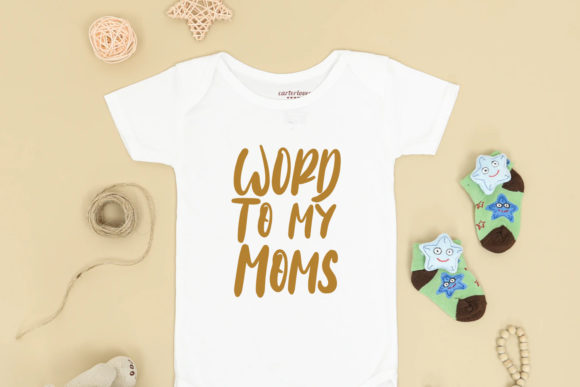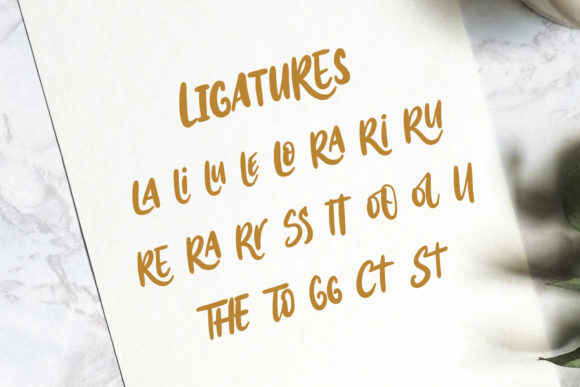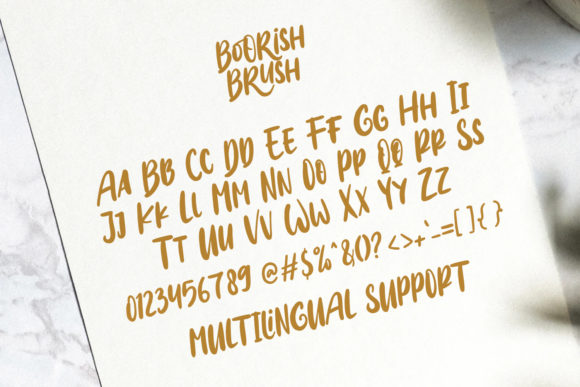
The Perfect Brush Stroke for Your Next Creative Project
Have you ever sat in front of a blank page, staring at a blank canvas, and wondering where to start? It’s a moment we’ve all experienced at some point or another. But then, something sparks – a phrase, a color, a font – and suddenly, the ideas start flowing. For me, that moment often comes when I discover a new, versatile font that can elevate my designs to the next level. Recently, I stumbled upon the Boorish Brush Font, and I’m excited to share its magic with you.
The Boorish Brush Font is a cool, adaptable, and friendly display font that’s designed to bring a personal touch to your projects. With its PUA encoding, accessing all the glyphs and swashes is a breeze, making it perfect for adding a unique flair to your designs. Whether you’re a seasoned designer or just starting out, this font is a valuable addition to your toolkit, allowing you to confidently experiment and create stunning results with the Boorish Brush Font.
Key Features of Boorish Brush Font
- Unique Brush Script Style: Boorish Brush Font features a distinctive brush script style with subtle imperfections, giving it a hand-drawn, organic feel that adds character to any text.
- Professional yet Playful: Boorish Brush Font strikes a balance between sophistication and playfulness, making it suitable for a wide range of design projects, from branding and advertising to editorial and digital media.
Boorish Brush Font Review
Overall, I think Boorish Brush Font has some great qualities that make it stand out, but also some limitations that might hinder its usability in certain projects.
- ✨ The unique, hand-drawn feel of the font is quite charming and can add a personal touch to any design.
- ✨ The bold weight is particularly effective for headlines and titles, and can help grab the viewer’s attention.
- ✨ The font includes a range of alternates and swashes that can add some extra flair to your designs.
- ⚠️ The font can be a bit difficult to read at smaller sizes, due to the irregular letterforms and spacing.
- ⚠️ The font family is relatively limited, with only a few weights and styles available.
- ⚠️ Some of the letterforms can be quite ornate, which might make them difficult to use in projects where a more straightforward, clean look is desired.
Overall, I think Boorish Brush Font is a great choice for projects where a unique, hand-drawn look is desired. However, it might not be the best fit for projects that require a lot of text or need a more straightforward, easy-to-read font.
Boorish Brush Font is ideal for:
- Creativity-focused projects, such as illustrations and graphic design.
- Personal branding and logo design.
- Handwritten-style invitations and event graphics.
Tips for Getting the Most Out of Boorish Brush Font
To get the most out of Boorish Brush Font, keep the following tips in mind:
- Use it sparingly to create visual interest. Alternatives to Boorish Brush Font
- Use Boorish Brush Font for the main text and headings, creating a cohesive look throughout the invitation.
- Pair the font with a mix of elegant and rustic design elements, such as watercolor patterns and distressed textures.
- Consider adding illustrations or hand-drawn elements to enhance the whimsical feel of the design.
Boorish Brush Font Creative Projects
Create a unique and playful wedding invitation design using Boorish Brush Font. The boorish brush font’s hand-painted, rustic feel adds a charming touch to any wedding invitation.
How to use Boorish Brush Font:
Project 2: Handmade Cookbook Design
Create a unique and personal cookbook design using Boorish Brush Font. The boorish brush font’s warm, handwritten feel adds a touch of warmth and authenticity to any cookbook.